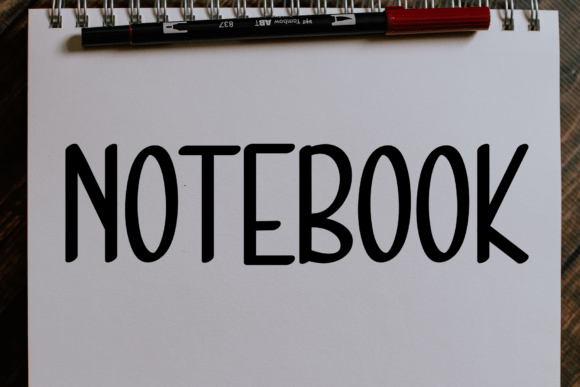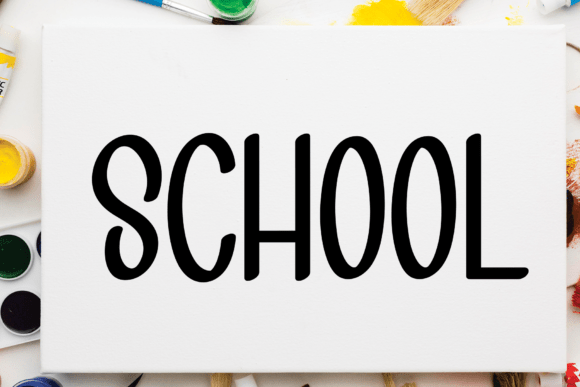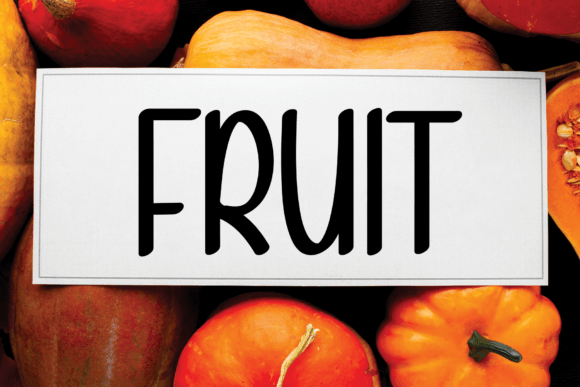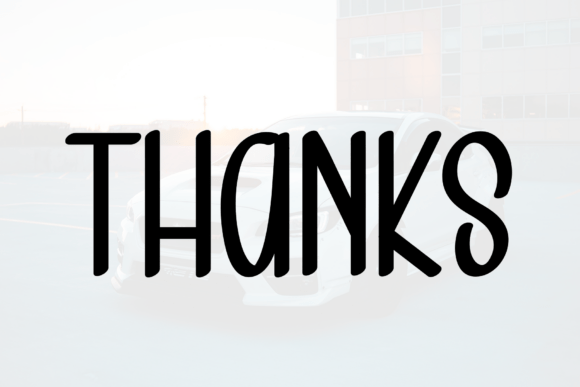
Introducing Good Fighter Font: The Charming Handwritten Font for Your Design Needs
Are you looking for a font that can add a touch of warmth and personality to your design projects? Look no further than Good Fighter Font, a charming handwritten font that is filled with a sense of heartfelt perfection. With its smooth strokes and organic lines, Good Fighter Font is the perfect choice for designers and crafters who want to create beautiful and engaging designs.
The Characteristics of Good Fighter Font
Good Fighter Font is a unique and versatile font that is characterized by its smooth strokes and organic lines. The font has a relaxed and casual feel, making it perfect for a variety of design projects, from branding and invitations to social media graphics and more. The font is also highly legible, making it easy to read and understand, even at small sizes.
What Makes Good Fighter Font So Special?
So, what sets Good Fighter Font apart from other fonts? Here are just a few things that make it so special:
- Handwritten with love: Good Fighter Font is a handwritten font, which means that it has a personal and unique touch that is hard to find with digital fonts.
- Smooth strokes and organic lines: The font’s smooth strokes and organic lines give it a relaxed and casual feel that is perfect for a variety of design projects.
- Highly legible: Good Fighter Font is highly legible, making it easy to read and understand, even at small sizes.
- Versatile: The font is versatile and can be used for a wide range of design projects, from branding and invitations to social media graphics and more.
How to Use Good Fighter Font in Your Design Projects
Good Fighter Font is a versatile font that can be used for a wide range of design projects. Here are just a few ideas to get you started:
- Branding: Use Good Fighter Font to create a unique and memorable brand identity that reflects your company’s personality and values.
- Invitations: Use the font to create beautiful and elegant invitations for weddings, parties, and other special events.
- Social media graphics: Use Good Fighter Font to create eye-catching and engaging social media graphics that will help you stand out from the crowd.
- Packaging design: Use the font to create beautiful and eye-catching packaging designs that will help your products stand out on store shelves.
Good Fighter Font is a charming handwritten font that is perfect for designers and crafters who want to add a touch of warmth and personality to their design projects. With its smooth strokes and organic lines, Good Fighter Font is highly versatile and can be used for a wide range of design projects, from branding and invitations to social media graphics and more. Whether you’re a professional designer or a crafty DIY enthusiast, Good Fighter Font is a great choice for any design project.